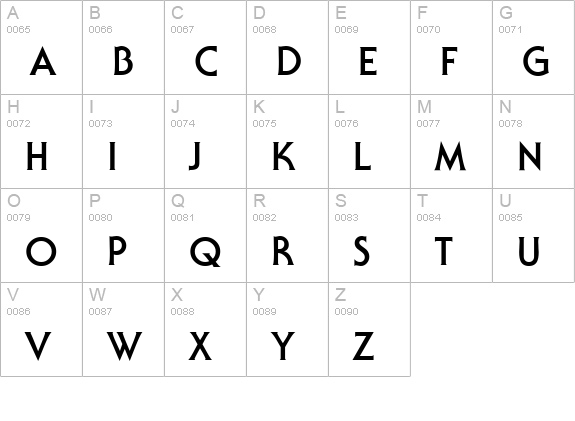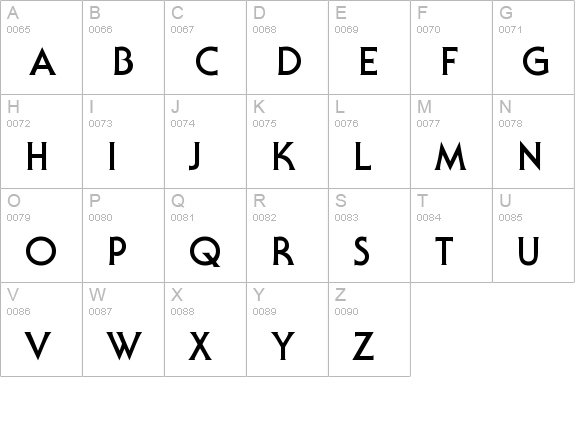
SerenadeTwo-Bold Font Details
SerenadeTwo-Bold is a strong, high-contrast variant in the SerenadeTwo typeface family \xE2\x80\x94 well suited to headlines, attention-grabbing titles, and strong calls-to-action.
SerenadeTwo-Bold is a striking and elegant typeface that exudes sophistication and modernity. With its bold and eye-catching design, this font commands attention and makes a statement in any design project. Featuring clean lines and a sleek appearance, SerenadeTwo-Bold is perfect for headlines, titles, and branding materials that require a strong and confident look. Best of all, SerenadeTwo-Bold is available for free download at FontsMarket.com. This means that you can easily access this high-quality font without any cost, making it a valuable tool for designers, creatives, and anyone looking to elevate their projects with a touch of class and style. Don't miss out on the opportunity to add SerenadeTwo-Bold to your font collection today!